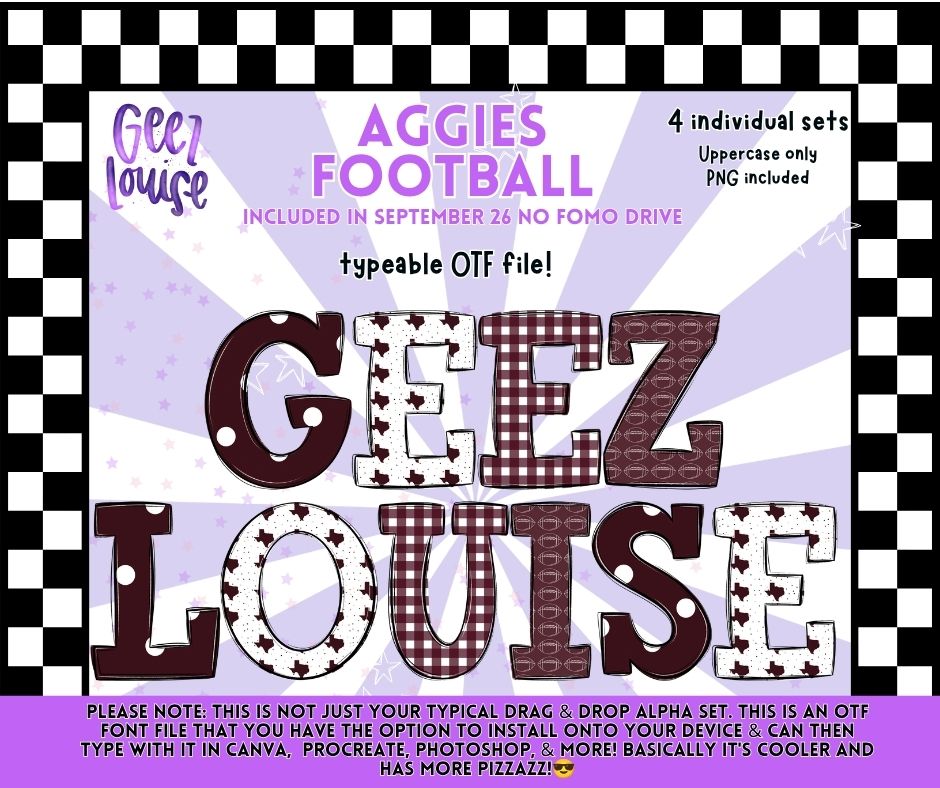
AGGIES FOOTBALL OTF ALPHA BUNDLE 🏈🤎
Game day lettering just got a whole lot easier! This Aggies Football Alpha Bundle includes 4 coordinating football-themed alpha styles in maroon and white, giving you plenty of ways to build names, sayings and spirited designs.
• Uppercase letters only
The four styles include coordinating solid, star, gingham and football patterns, all designed to mix and match for game-day projects.
Perfect for team names, player names, football shirts, spirit wear, sublimation designs, digital graphics and more.